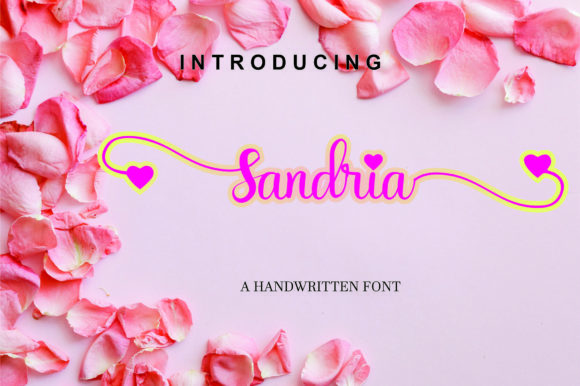
Journey into the world of elegance and grace with Sandria Font, a breathtaking script font family that adds a touch of sophistication to your creative endeavors. Sandria's slim body, crafted with meticulous attention to detail, exudes a clean and modern aesthetic that is sure to leave a lasting impression.
Unleash your creativity as you design logos that radiate professionalism, website headers that captivate, fashion designs that ooze style, and wedding card designs that evoke romance. With Sandria Font, possibilities are as endless as your imagination.
Take your designs to new heights with Sandria's timeless beauty. Create logos that command attention, website headers that invite exploration, fashion designs that turn heads, and wedding card designs that capture the essence of love.
Experience the allure of Sandria Font and transform your creative vision into a reality. Whether you're a seasoned designer seeking inspiration or a novice navigating the world of typography, Sandria Font will be your trusted companion, guiding you towards designs that resonate with your audience.